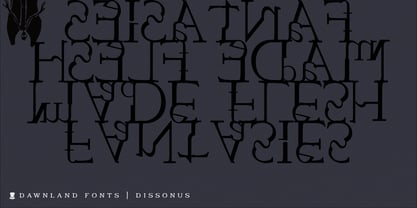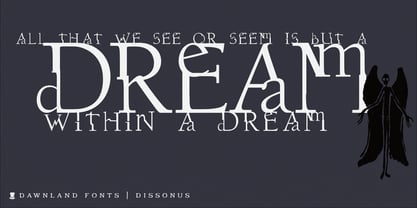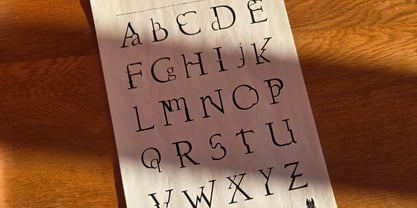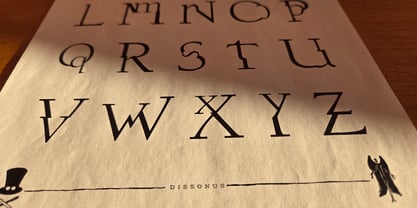
Dissonus
by Dawnland
The Dissonus Font Family was designed by Daniel Viberg and published by Dawnland. Dissonus contains 1 styles.
DisSonus is ideal for: Initial characters - give your text an unparalleled facelift! Headlines - create a unique look for your posters, event graphics, book covers & music/media/game packaging. Preamble - reanimate the introduction... DisSonus was revised 2012 and now hold a full character set of basic english/latin letters and west european diacritics! Note that there are no digits in this font. Use a fitting antiqua such as Berkeley Book or (insert your favourite version here) Garamond.